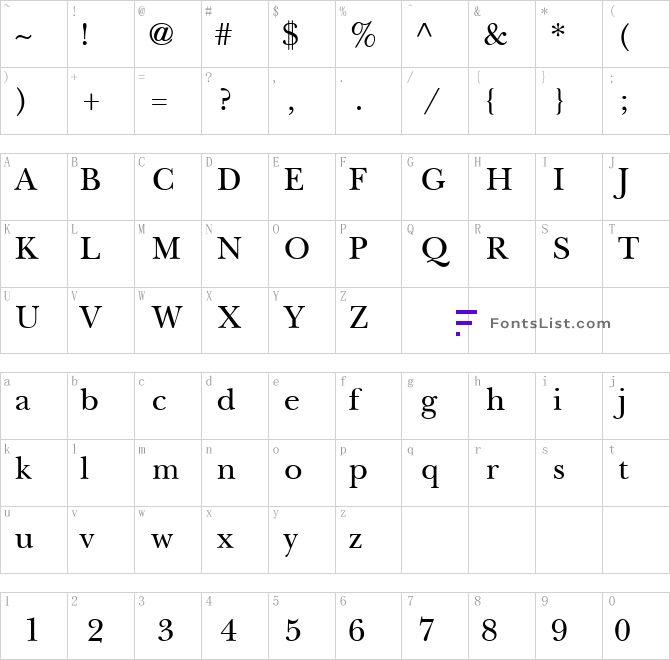
- Font Name:Baskerville Light SSi
- Subfamily:Light
- Full Name:Baskerville Light SSi Light
Baskerville-Light-SSi-Light.ttf is a very beautiful artistic font, Baskerville-Light-SSi-Light.ttf is widely used in the design and printing of various books and pictures,Baskerville-Light-SSi-Light.ttf has a strong visual impact,Baskerville-Light-SSi-Light.ttf is a commonly used font in newspapers, magazines and books, and is used in posters, e-commerce Poster design, store design, logo design, font design and other fields.Baskerville-Light-SSi-Light.